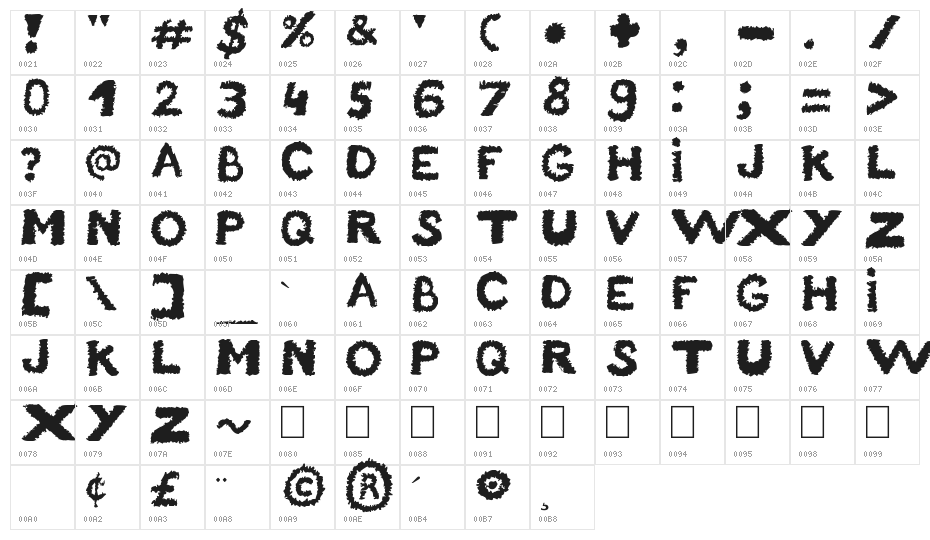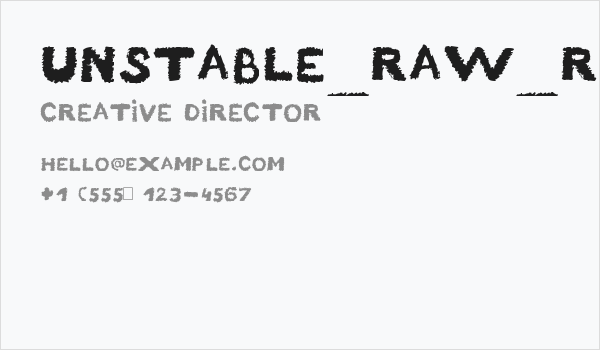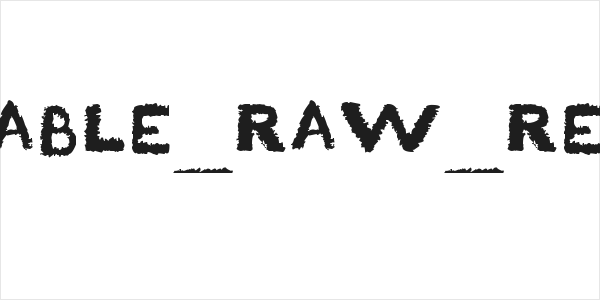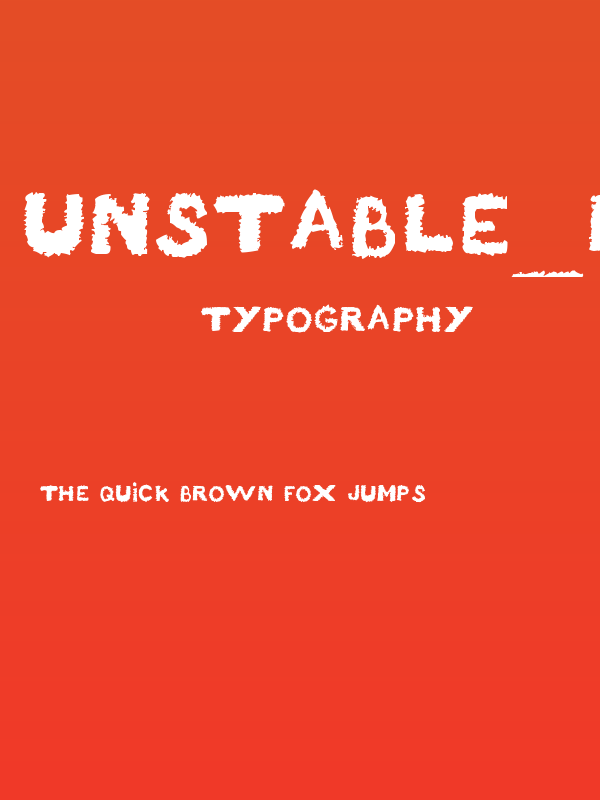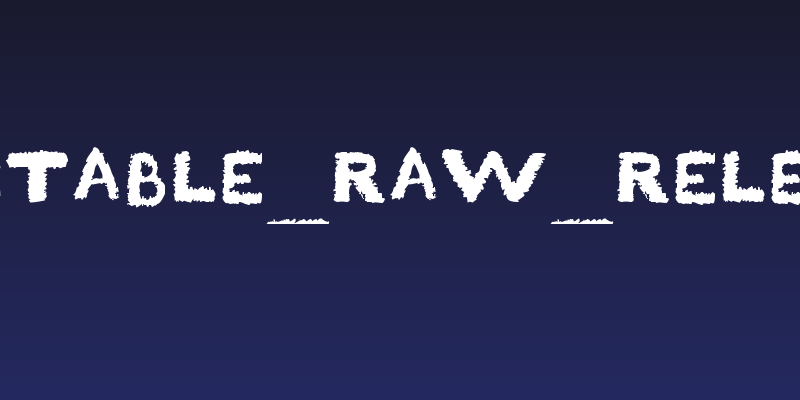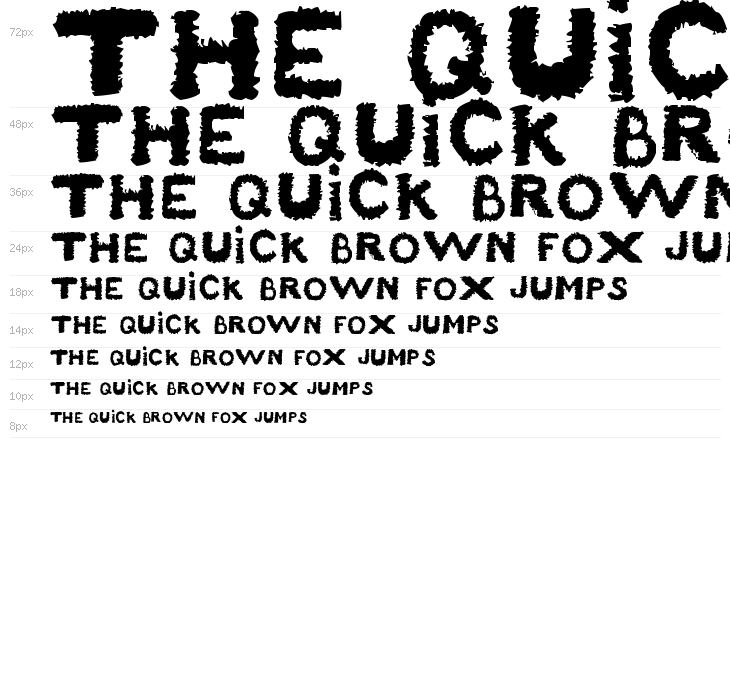
Unstable_raw_release Font
Unstable_raw_release Description
This font features a bold and jagged appearance, reminiscent of torn paper or rough brush strokes. Each character is uniquely textured, giving it a dynamic and energetic feel. The uppercase and lowercase letters maintain a consistent style, with sharp edges and irregular outlines that create a sense of movement. The numbers and special characters follow the same design, ensuring a cohesive look across all elements. This font's distinctive style makes it stand out, perfect for projects that require a bold and unconventional typeface.
| Proposed Projects | Ideal for horror-themed posters, edgy branding, album covers, or any project needing a striking and unconventional typeface. |